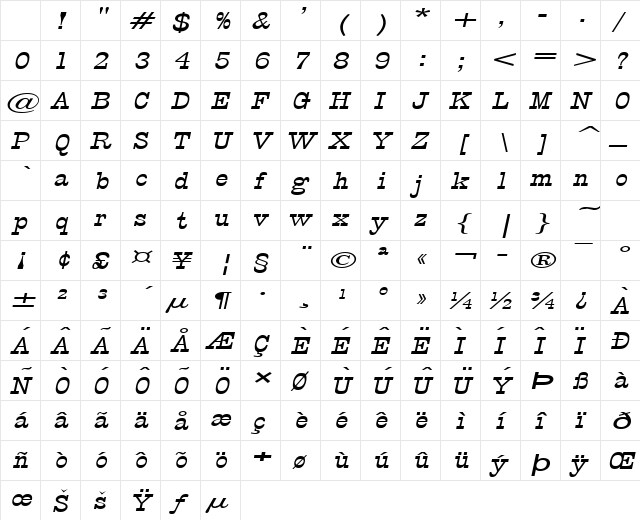
Circus Wide is a composed and adaptable typeface that performs quietly and consistently across a wide range of design contexts. The slanted form adds forward momentum and visual energy.
Pro Tip: Use Circus Wide for emphasis, pull quotes, and subheadings where its slanted energy can add rhythm to the layout.